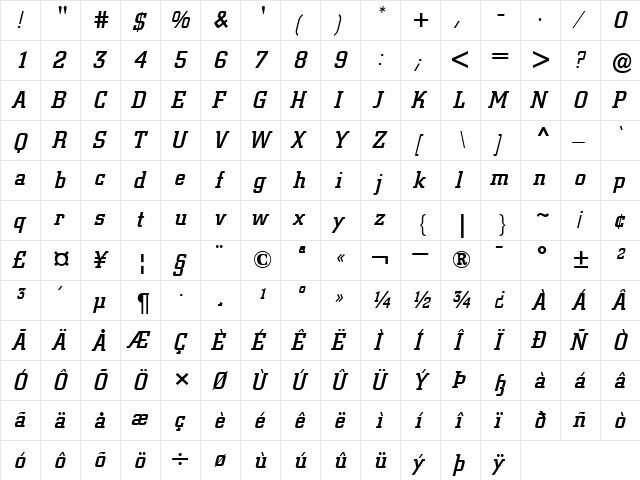
City MediumItalic
Design Context for City Typeface
City takes a measured approach to typography — its balanced proportions and neutral character make it a reliable workhorse for both digital and print work. Its italic angle brings a sense of urgency and motion to the letterforms.
Pro Tip: Use City for emphasis, pull quotes, and subheadings where its slanted energy can add rhythm to the layout.